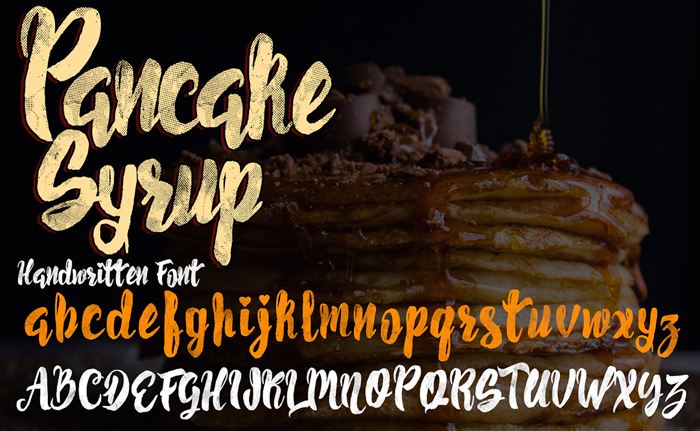
Pancake Syrup Font
PANCAKE SYRUP
- Handwritten brush inspired font perfect on your school projects, covers, etc.
- Lifestyle theme script font for branding, website, mobile app etc.